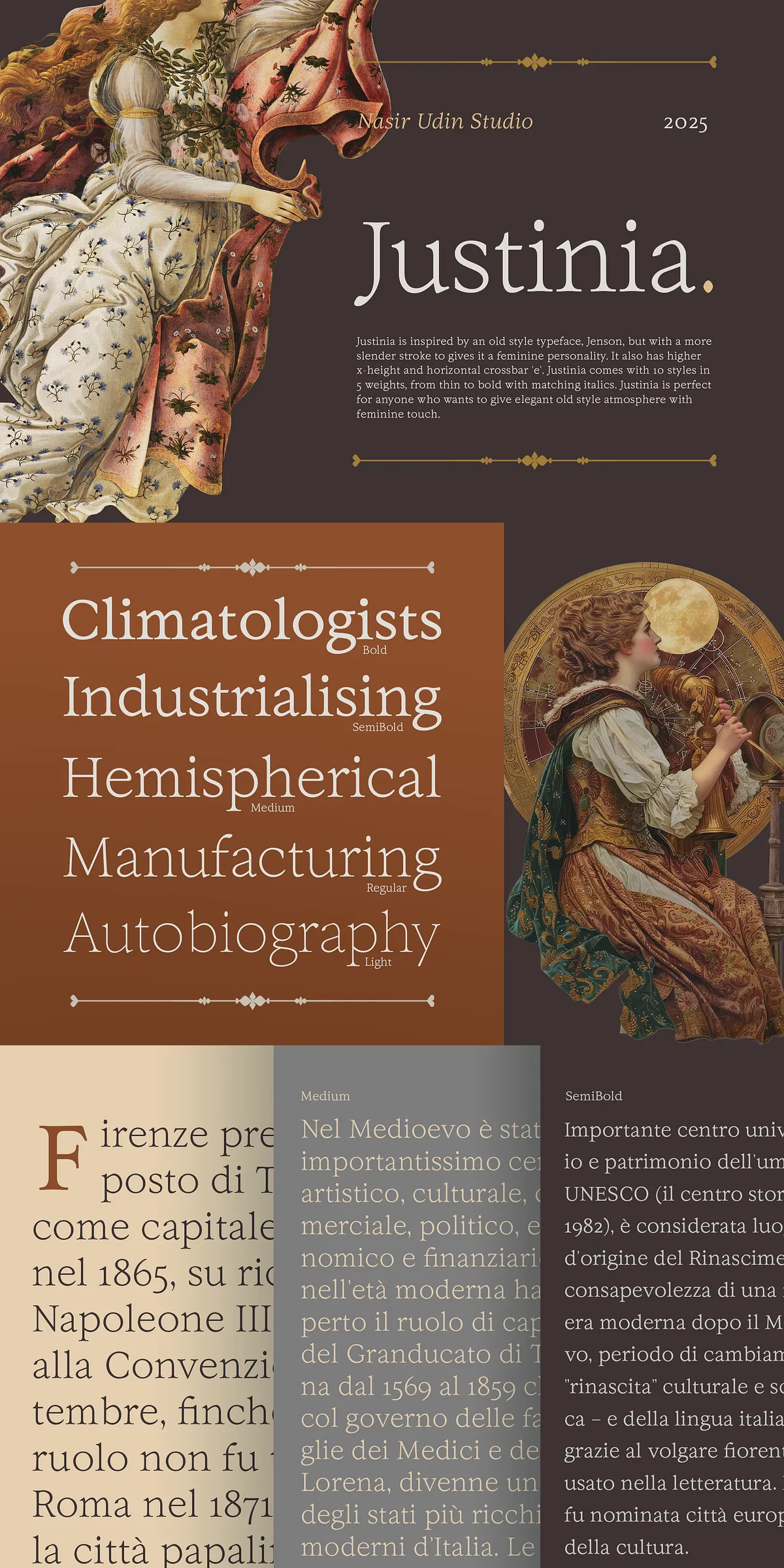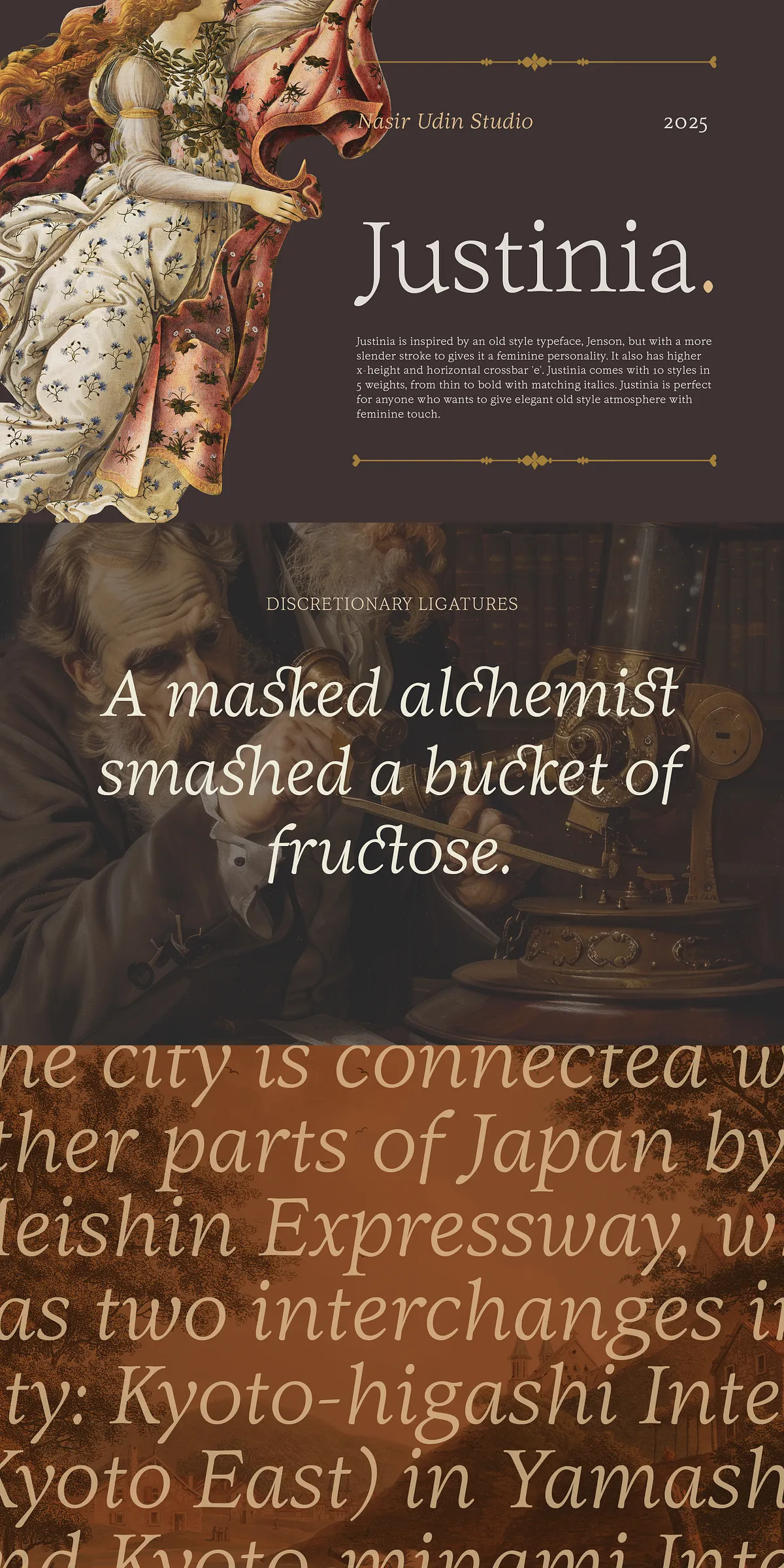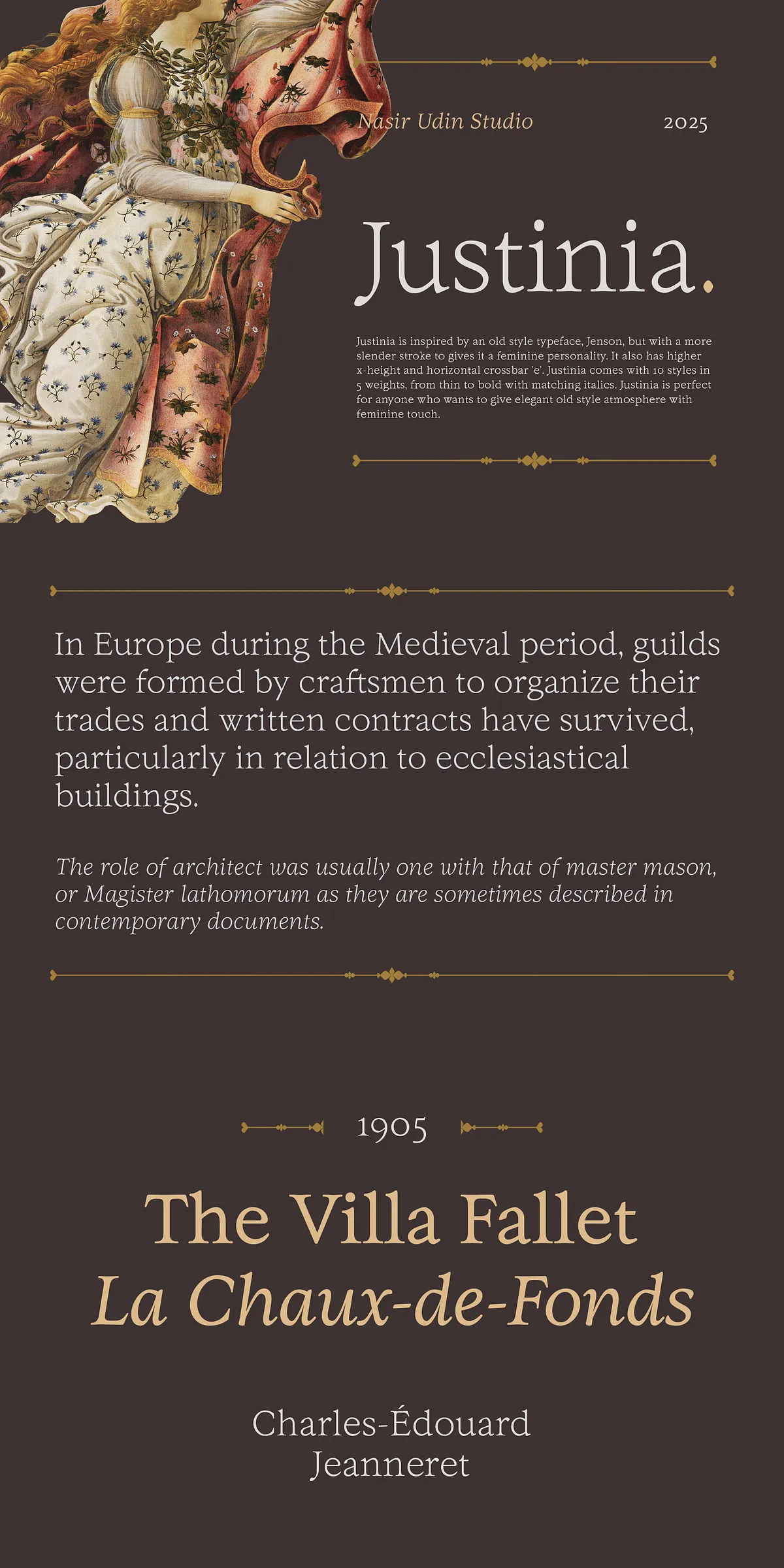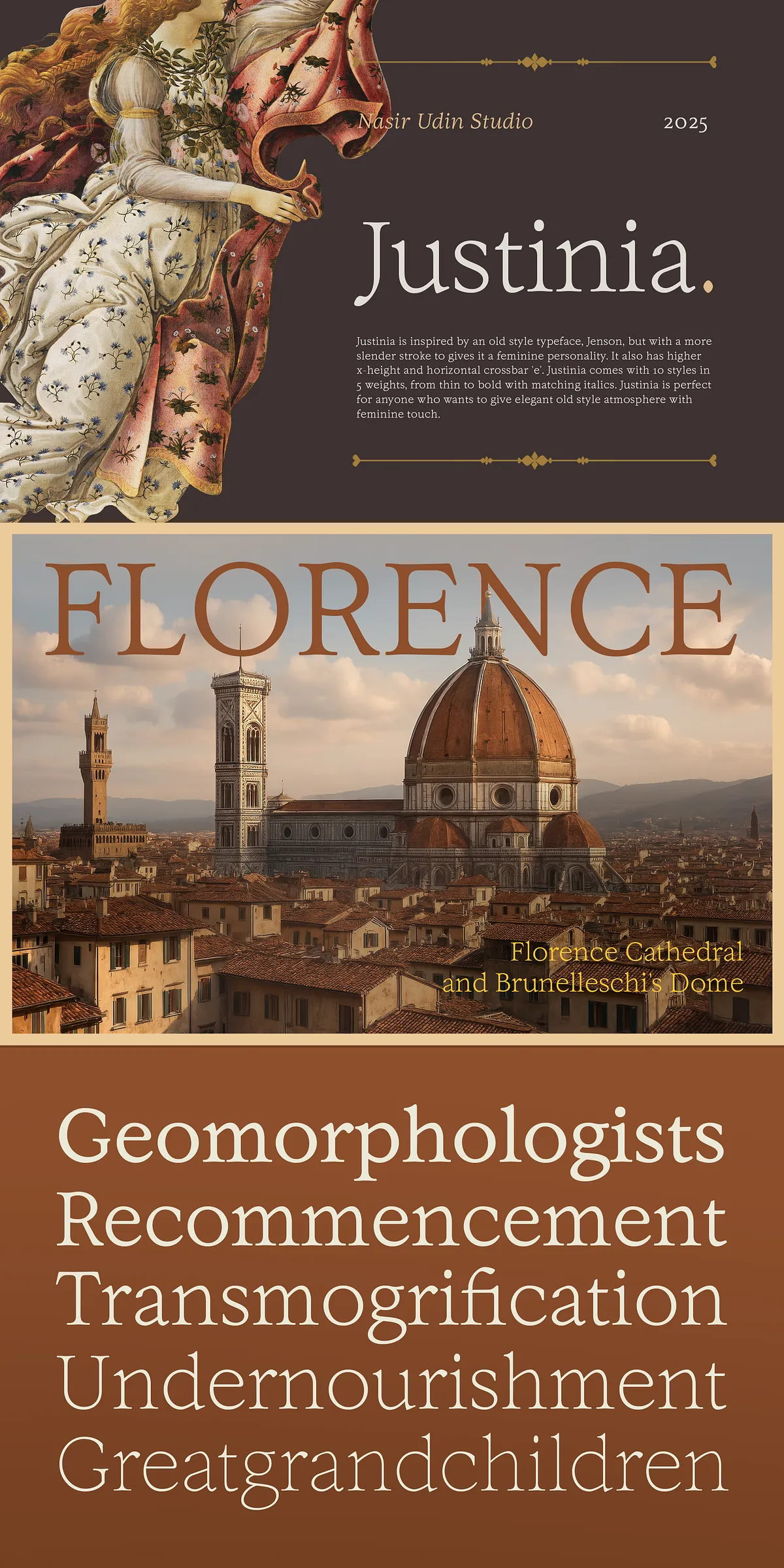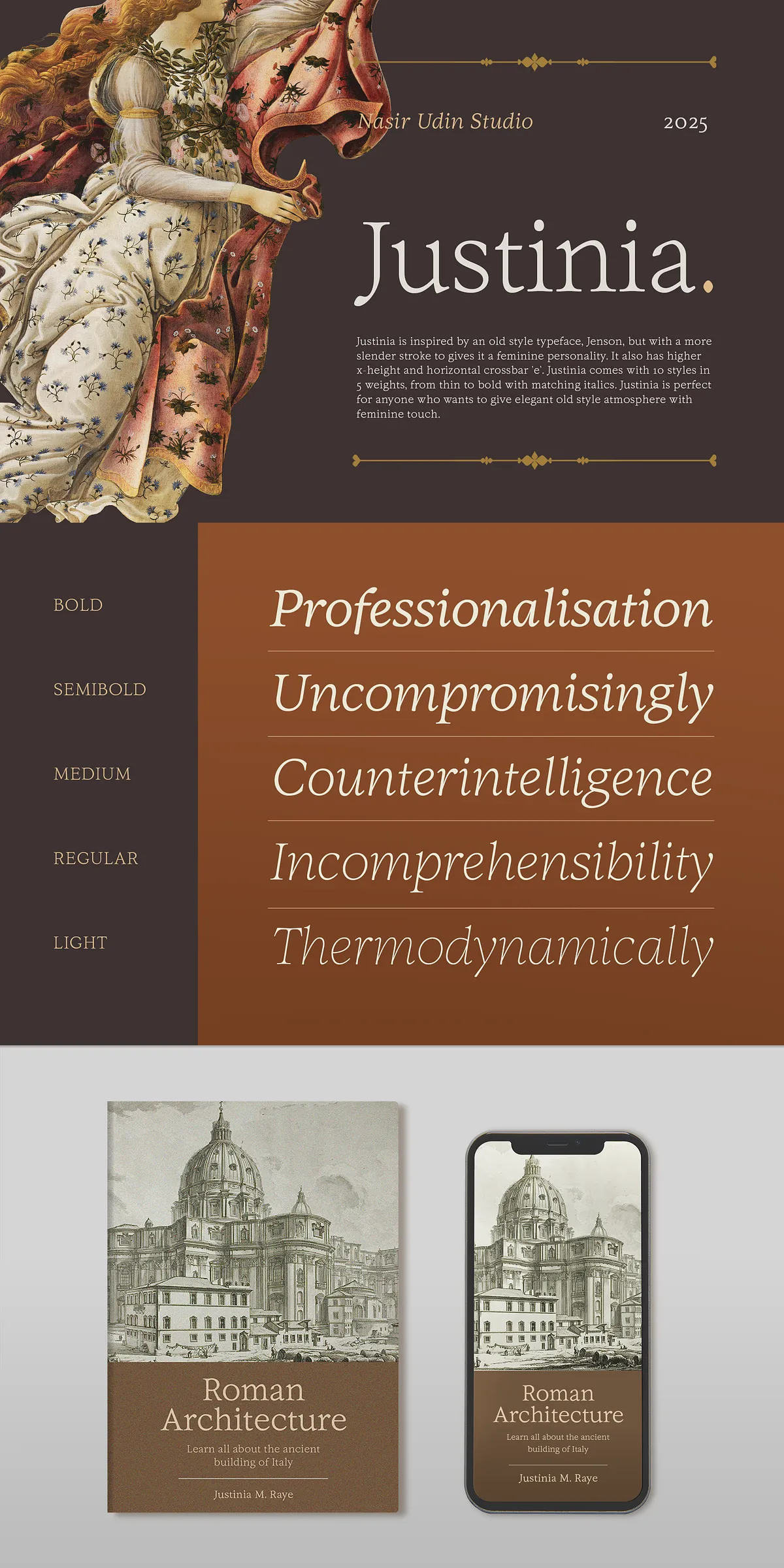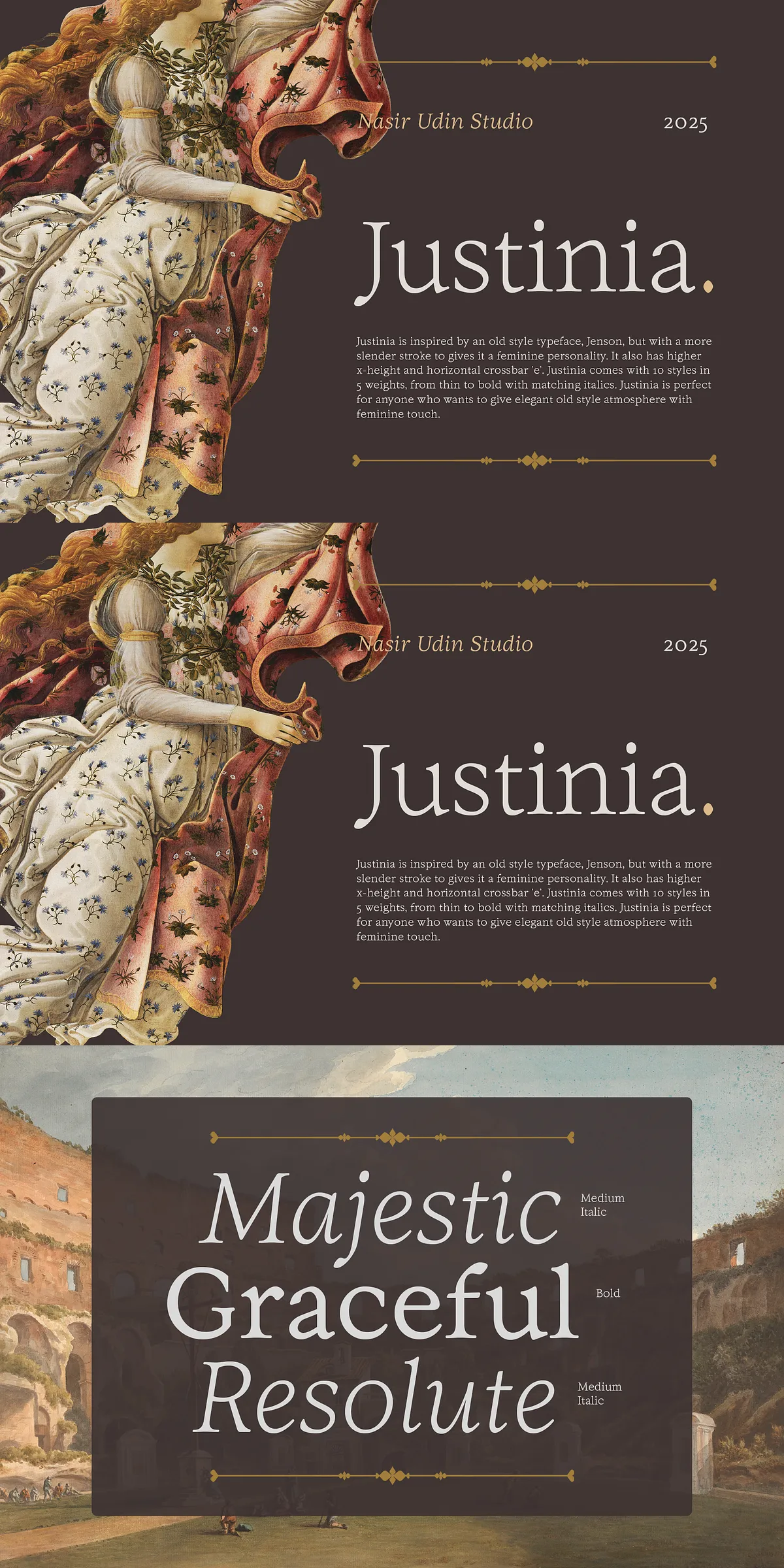
Step into a world of refined beauty and timeless grace with Justinia—a meticulously crafted serif font that redefines modern elegance. Inspired by the classic proportions of the historic Jenson typeface, Justinia brings a fresh, feminine energy to traditional typography. Its slender strokes, delicate curves, and soft presence make every line feel like an artful whisper—perfect for projects that demand both sophistication and soul.
Rediscover Elegance in Every Letter
Justinia isn’t just a font—it’s a statement of refinement. Engineered to carry the soul of old-style typography, it features a higher x-height and a uniquely refined horizontal crossbar on the letter “e”. These subtle yet powerful design choices improve readability while enhancing the font’s graceful, lyrical rhythm. Whether you’re setting a single headline or an entire document, Justinia ensures clarity, balance, and undeniable charm from first glance to last word.
10 Styles, 5 Weights—Unparalleled Versatility
From delicate whispers to bold declarations, Justinia adapts to your creative vision. The full family includes 10 distinct styles across 5 carefully graded weights—Thin, Light, Regular, Medium, and Bold—each with matching italic variants. This depth means you have full control over mood and emphasis:
- Thin & Light for fine editorial design, luxury packaging, and minimalist branding.
- Regular & Medium for body text, websites, and clean typography layouts.
- Bold for impactful headlines, logos, and statement graphics.
Every weight is hand-adjusted to preserve the font’s delicate character, ensuring consistency and harmony across your entire project.
Designed for a Feminine Aesthetic Without Compromise
Justinia was built for those who value subtlety and strength in equal measure. The slender stroke contrast, rounded serifs, and gentle slope of its lowercase letters evoke a sense of warmth, grace, and quiet confidence. It’s not just “feminine” in appearance—it carries a quiet power that resonates in elegant logos, wedding invitations, fashion editorials, and high-end brand identities.
It’s ideal for:
- Brand identities seeking vintage charm with modern clarity
- Wedding stationery, baby announcements, and personal letters
- Book covers, magazine layouts, and editorial design
- Luxury product labels and packaging
- Website headers and email newsletters with personality
Typography That Tells a Story
With Justinia, you’re not just choosing a font—you’re choosing a narrative. Its soft curves invite the eye to linger. The flowing lines and gentle balance between light and dark convey emotion, memory, and intention. Use the italic variants to add a touch of movement—ideal for quotes, captions, or subtle emphasis.
Why Justinia Stands Out
In a world saturated with generic typefaces, Justinia stands tall as a rare gem. It’s not just inspired by history—it honors it while adapting with purpose. It’s a font built for those who believe typography should feel like a hand-written note from a friend: personal, refined, unforgettable.
Unlock the full potential of Justinia—where tradition meets femininity, and every letter tells a story.